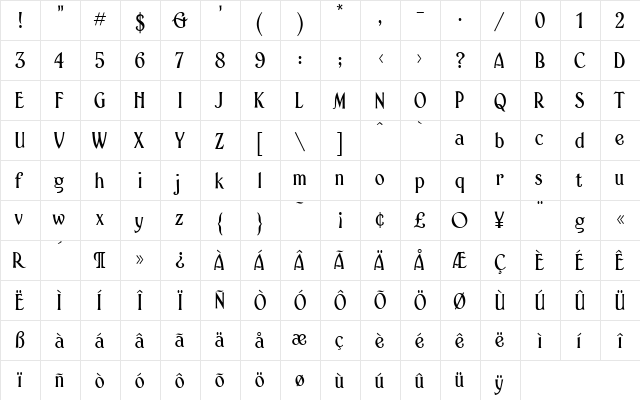
Blackfriar Regular
Design Context for Blackfriar Typeface
Blackfriar takes a measured approach to typography — its balanced proportions and neutral character make it a reliable workhorse for both digital and print work.